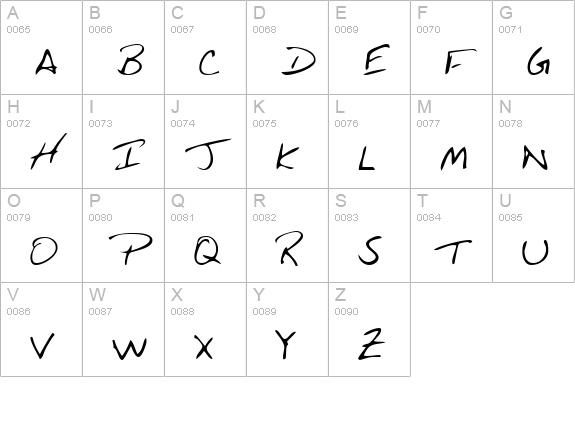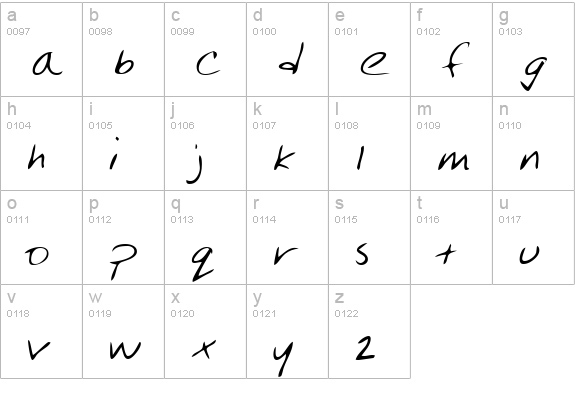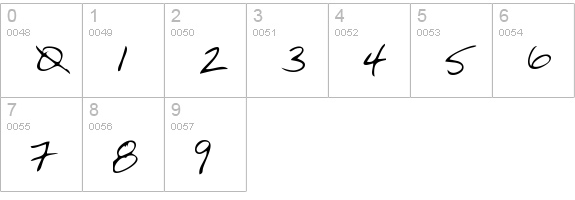
LinfordsHand Regular is the standard, neutral variant in the LinfordsHand typeface family \xE2\x80\x94 well suited to general body text, paragraphs, and standard typographic work.
LinfordsHand Regular is a charming and elegant handwritten font that exudes a sense of warmth and friendliness. With its smooth lines and graceful curves, this font is perfect for adding a personal touch to your projects. Whether you're creating invitations, greeting cards, or social media graphics, LinfordsHand Regular will bring a touch of sophistication to your designs. The best part? LinfordsHand Regular is available for free download at FontsMarket.com. You can easily access this beautiful font and use it in your personal or commercial projects without any cost. So why wait? Download LinfordsHand Regular today and elevate your designs with its timeless appeal.